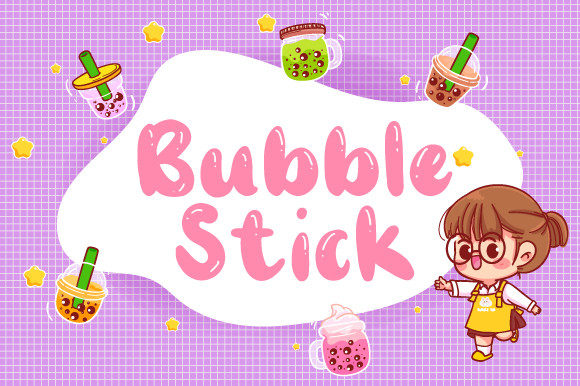
The Ultimate Guide to Bubble Stick Font: Adding a Pop of Fun to Your Designs
I’ll never forget the time I was working on a branding project for a children’s toy company. I had spent hours perfecting the logo design, but something was missing. The font I was using just wasn’t fun enough, not bubbly enough, not exciting enough. That’s when I stumbled upon Bubble Stick Font, and it completely transformed my design. In this article, I’ll share my love for this amazing font, its features, and how to make the most of it in your designs.
An Honest Review of Bubble Stick Font
Bubble Stick Font has quickly become one of my go-to fonts for creative projects. Here’s what I love about it:
• ✨ Unique and playful design: Bubble Stick Font is a cool and bubbly display font that adds a touch of whimsy to any design.
• ✅ Highly versatile: It can be used for a wide range of projects, from logos and t-shirt printing to creative products and more.
• 🌈 Colorful and fun: The font’s bubbly design makes it perfect for designs that require a pop of color and fun.
While Bubble Stick Font is an amazing font, it’s not perfect. Here are a few small quirks to keep in mind:
• 🤔 Limited use in formal contexts: Due to its playful design, Bubble Stick Font may not be suitable for formal or professional projects.
• ⚠️ Legibility at small sizes: The font’s bubbly design can make it harder to read at small sizes, so it’s best used at larger sizes.
The Backstory of Bubble Stick Font
Bubble Stick Font was designed by a team of creatives who wanted to create a font that would add a touch of fun and whimsy to designs. Inspired by the playful world of children’s toys and games, the font features a unique and bubbly design that’s perfect for creative projects.
Font Name Bubble Stick Font
Author Wisnoetype Co
What is Bubble Stick Font best used for? Bubble Stick Font is perfect for creative projects that require a playful and fun touch, such as logos, t-shirt printing, and creative products.
Is Bubble Stick Font suitable for formal contexts? No, due to its playful design, Bubble Stick Font may not be suitable for formal or professional projects.
Is Bubble Stick Font easy to read? Bubble Stick Font is best used at larger sizes, as its bubbly design can make it harder to read at small sizes.